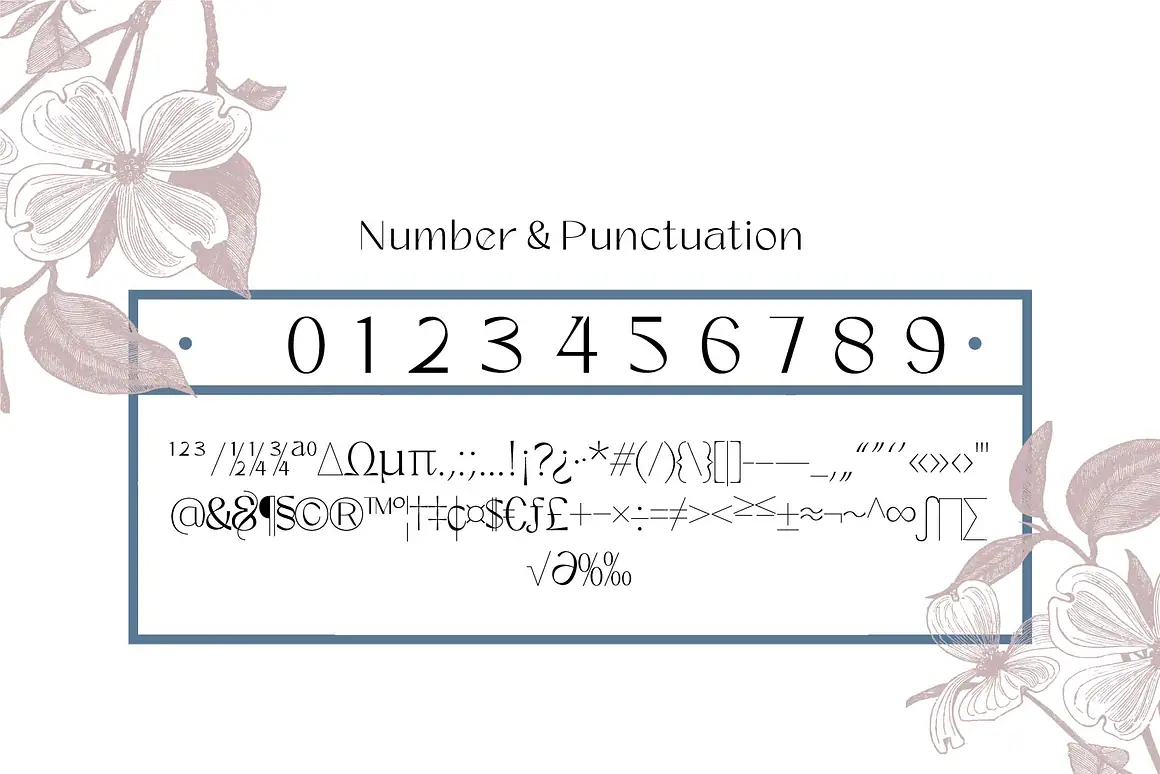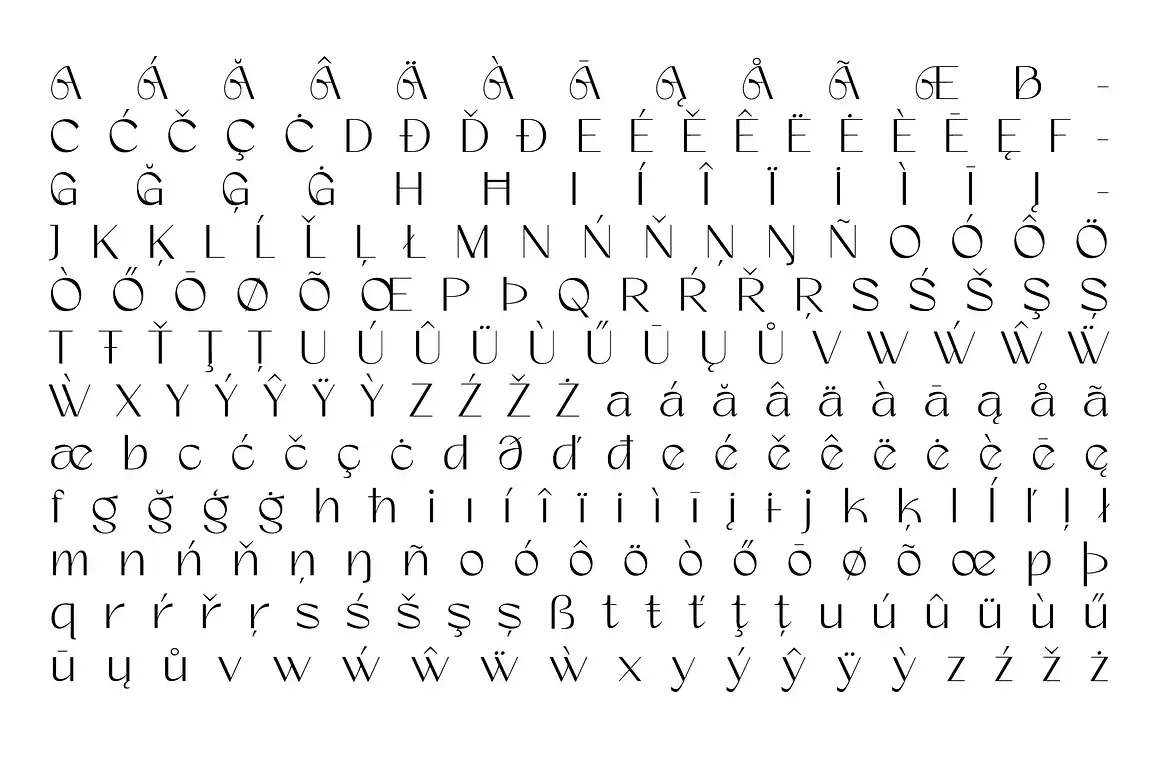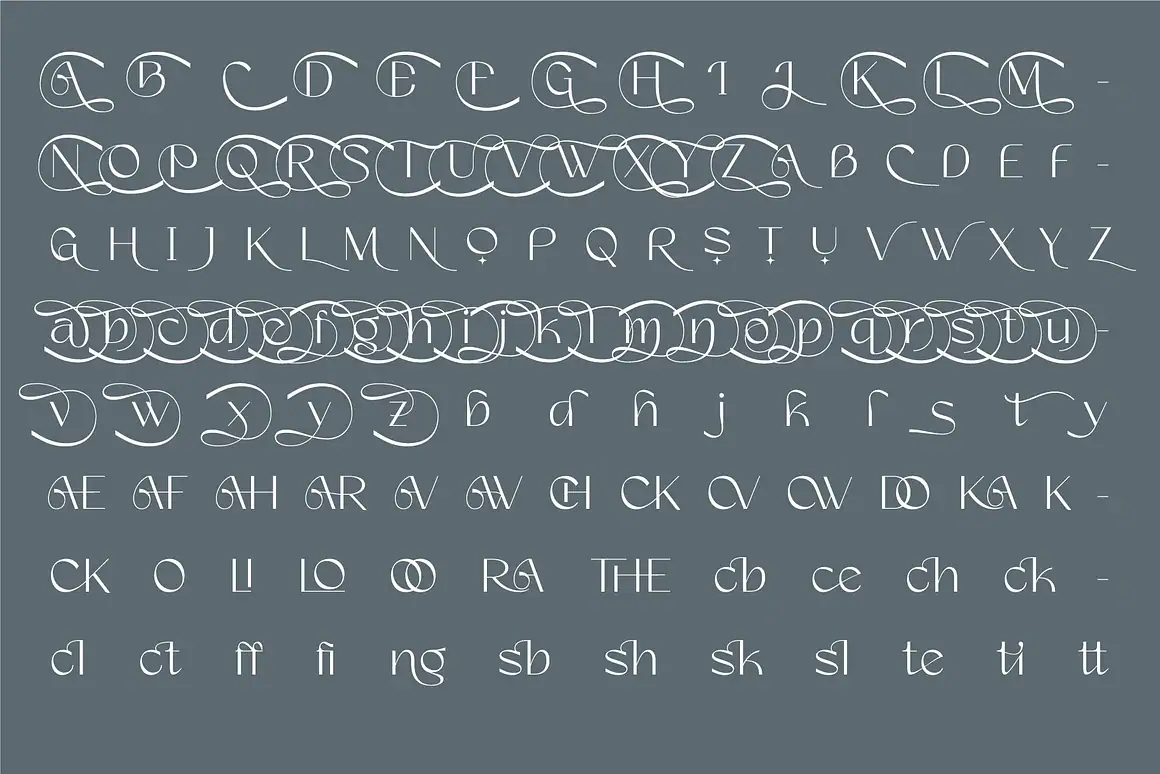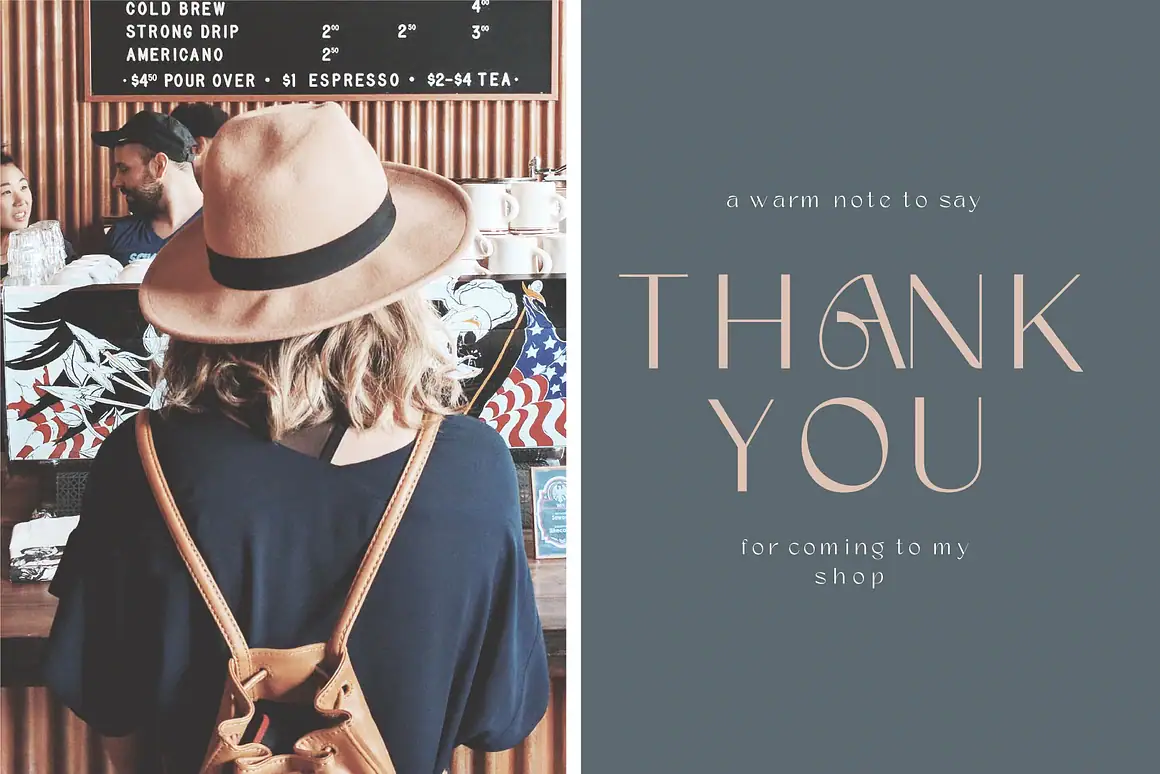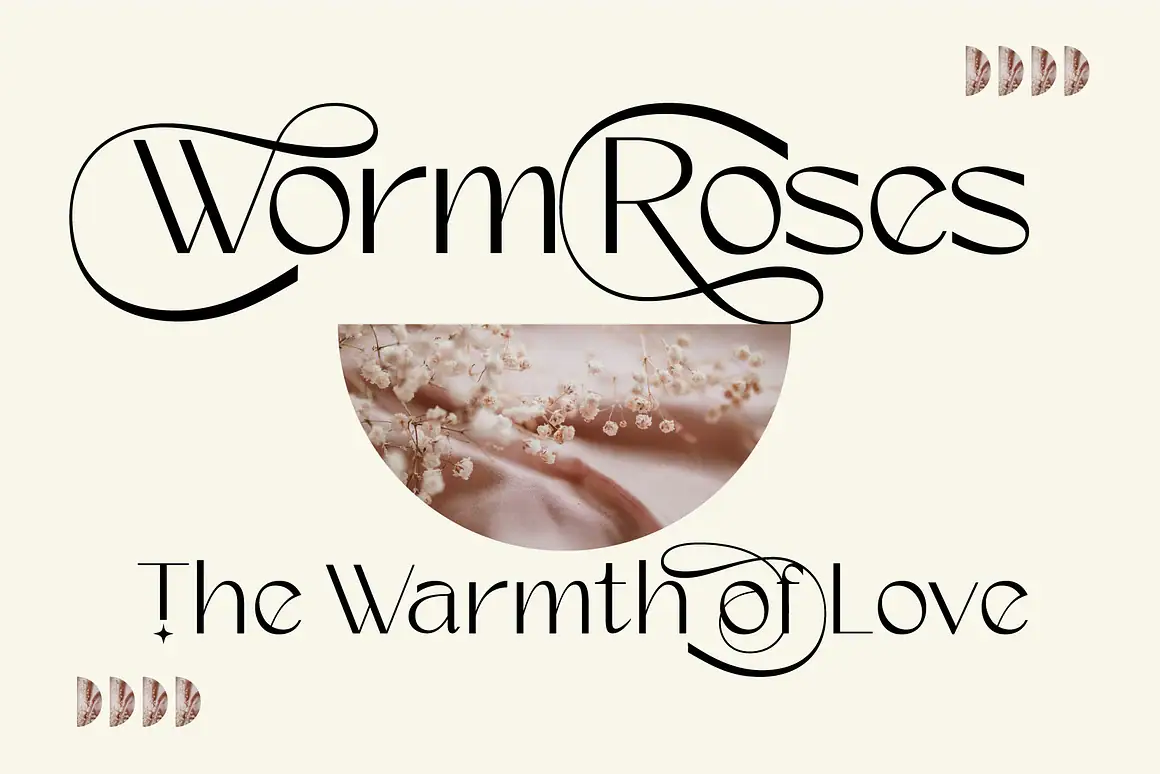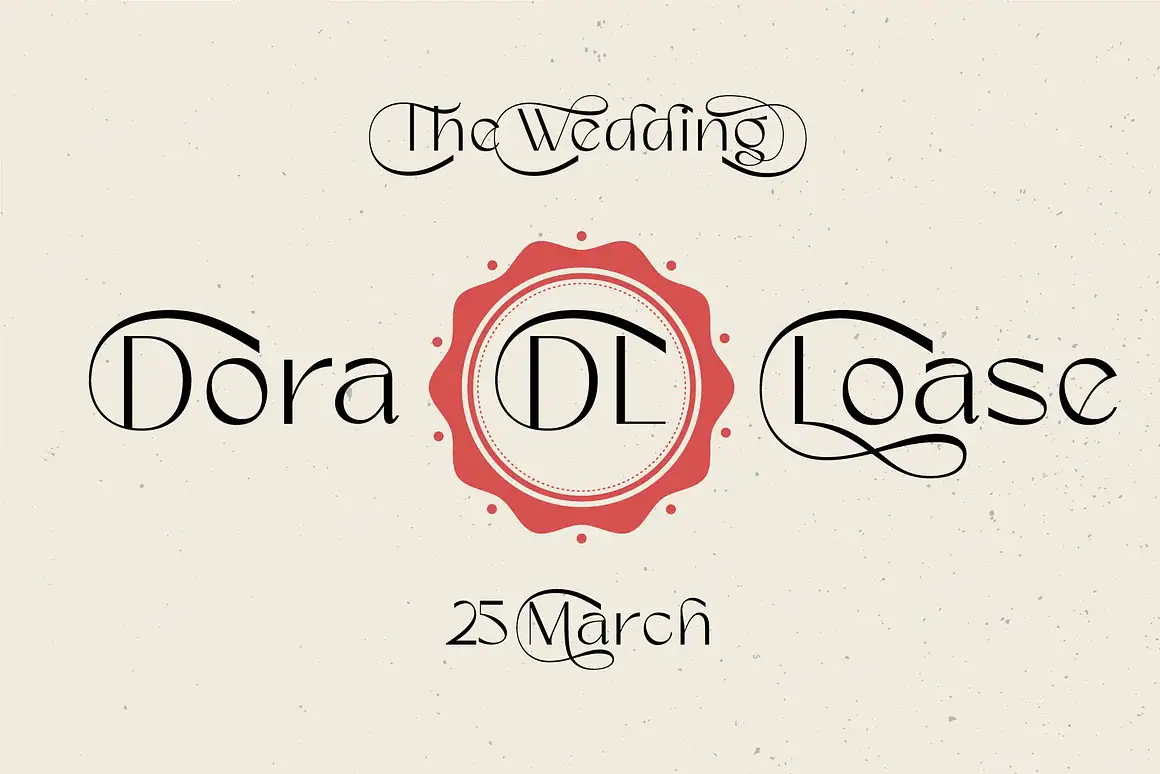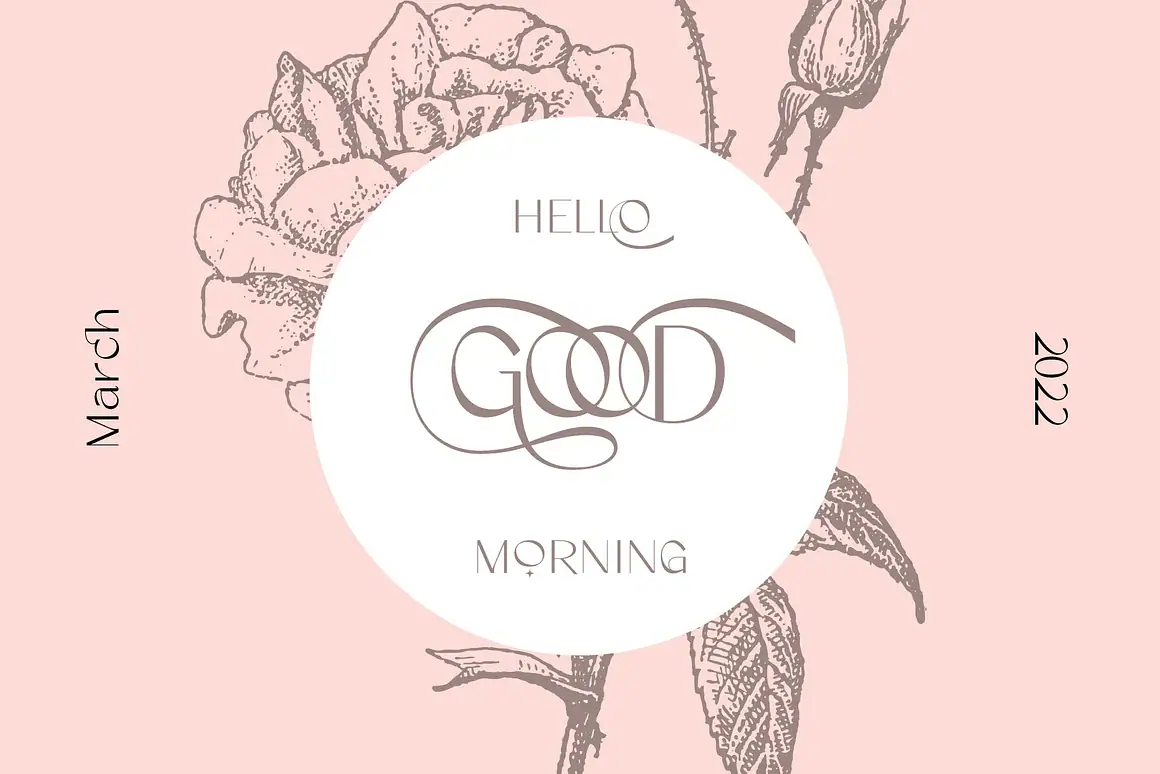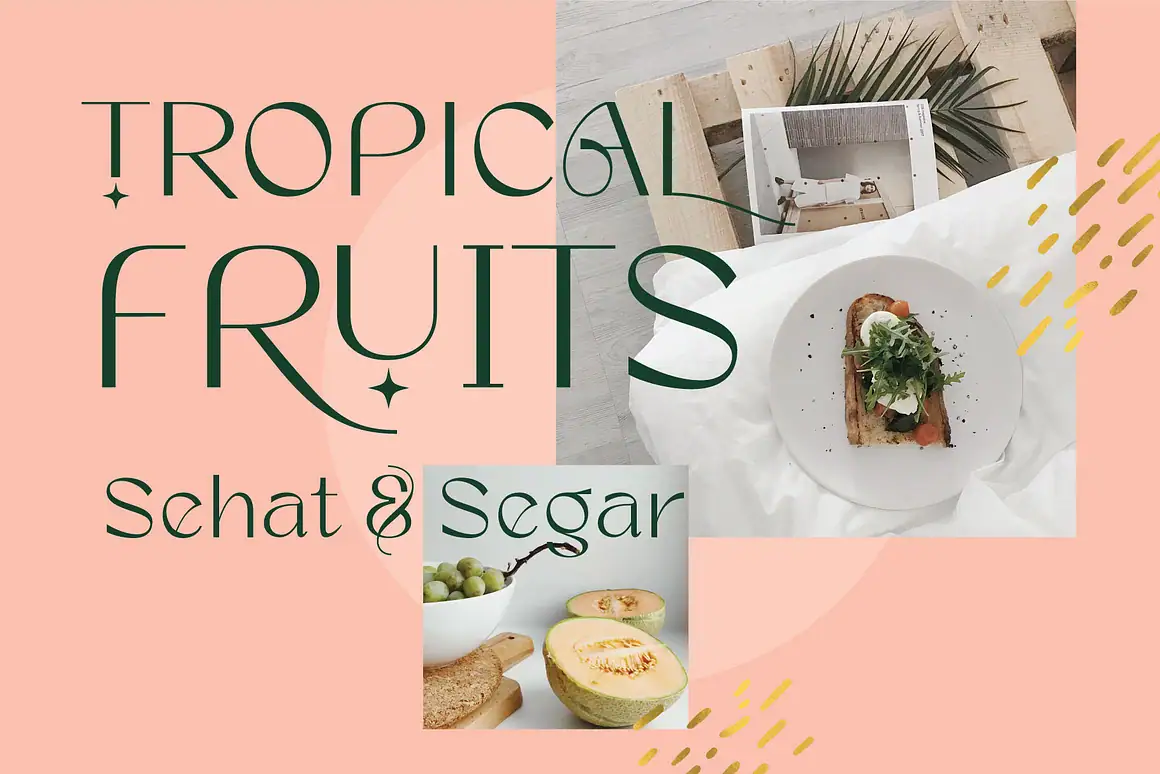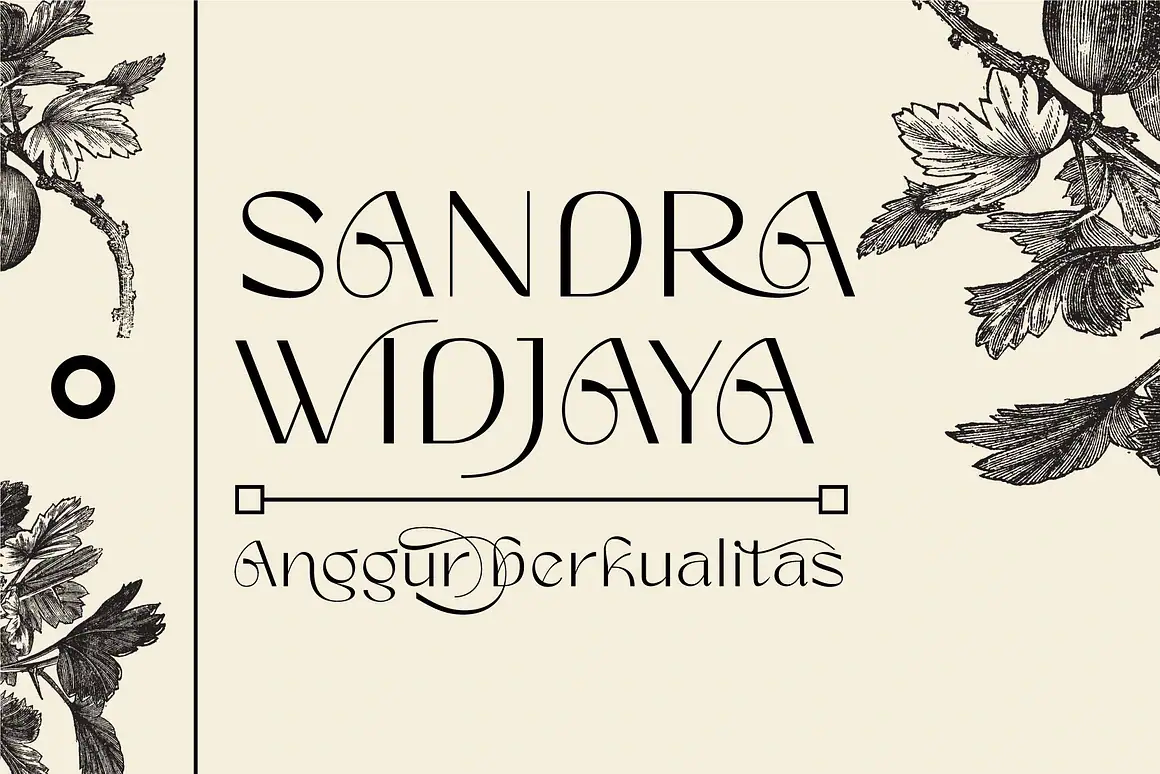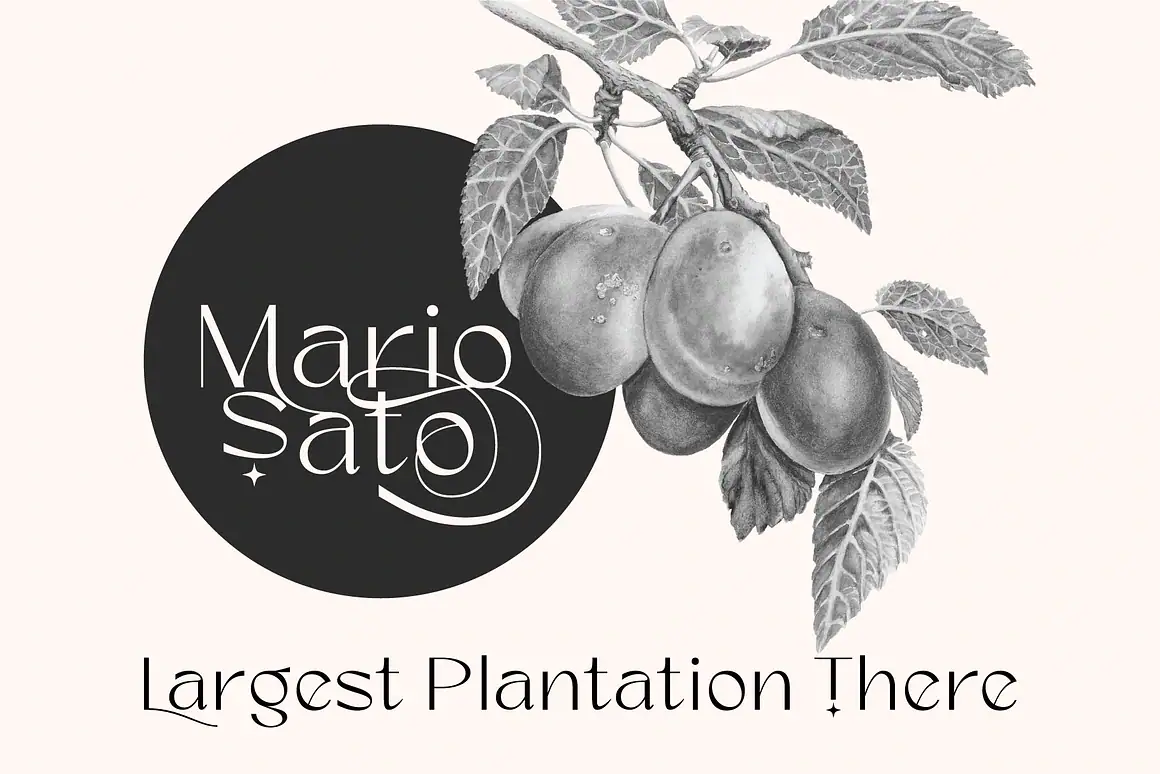
Blade Rush - Modern Sans Serif Typeface
Blade Rush contains 1 style.
Blade Rush is a modern sans serif typeface featuring a complete set of uppercase and lowercase letters, multilingual symbols, numerals, punctuation, and ligatures. Designed with elegance in mind, Blade Rush is perfect for posters, magazines, beauty branding, and stylish design concepts. The font also includes swash glyphs for a more decorative and sophisticated touch.
• Standard uppercase & lowercase letters
• Numerals, extensive punctuation, and ligatures
• Lowercase letters with elegant ending swashes
• Multilingual support (ä ö ü Ä Ö Ü ß ¿ ¡)